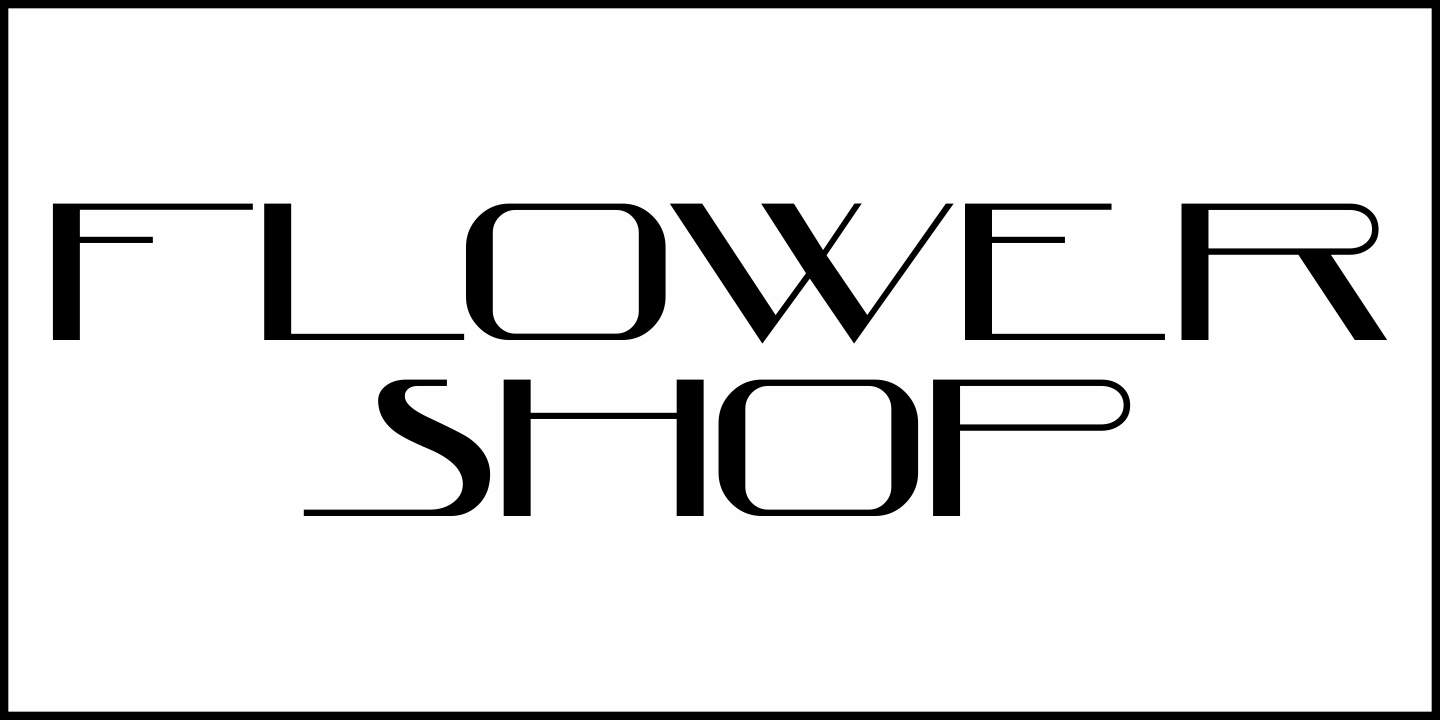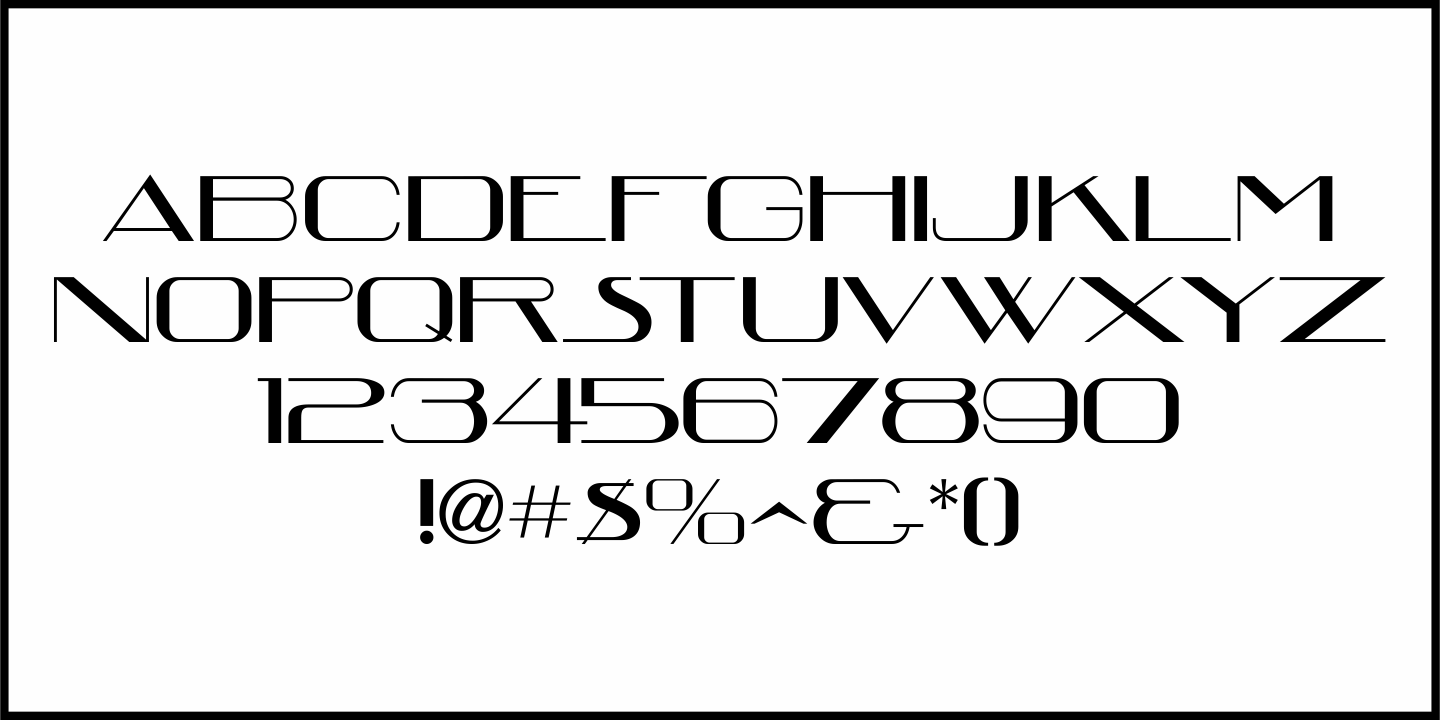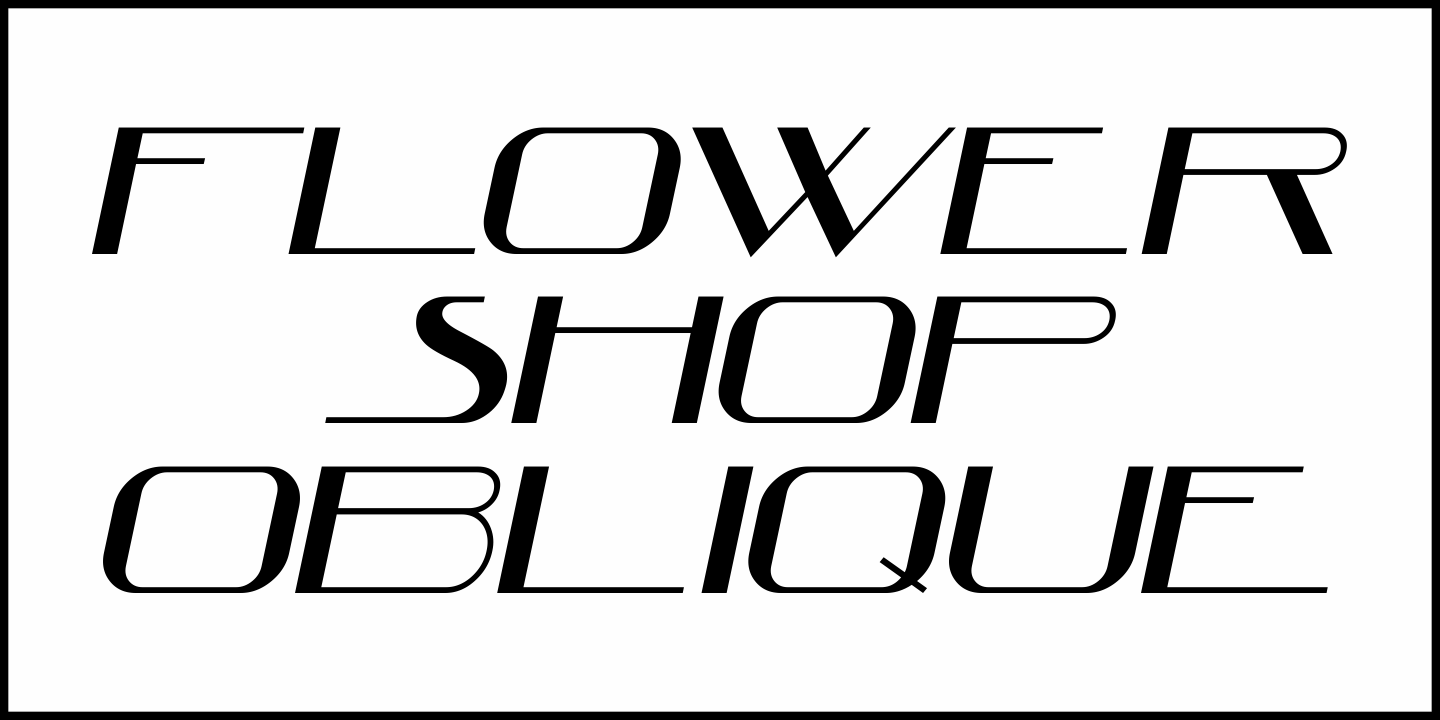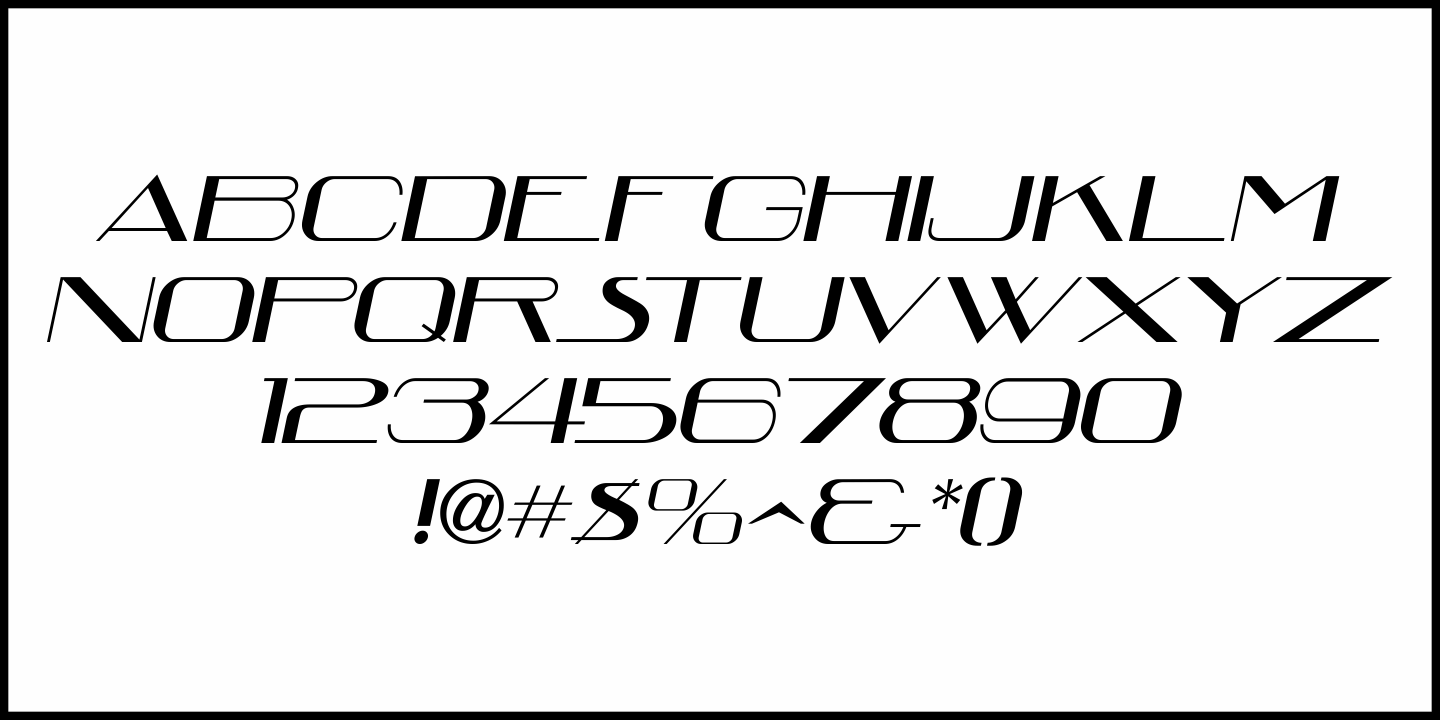
Flower Shop
A piece of sheet music for “Broken Blossoms” circa the 1920s or early 1930s has its cover title hand lettered in a wide thick-and-thin Art Deco design.
This is now available as Flower Shop JNL, in both regular and oblique versions.